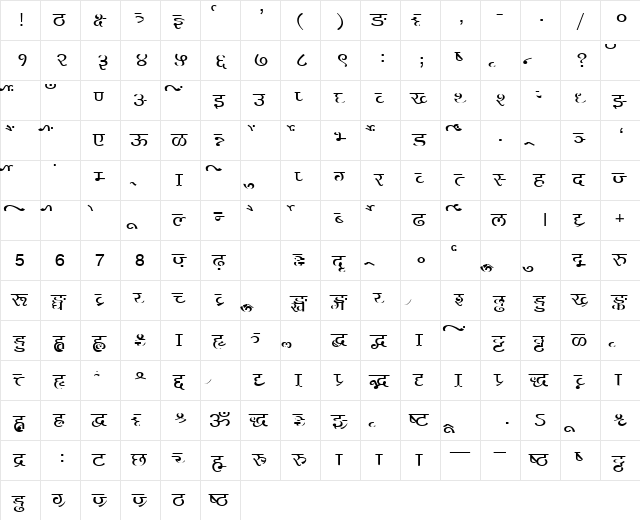
AkrutiDevMegha Normal
Design Context for AkrutiDevMegha Typeface
AkrutiDevMegha takes a measured approach to typography — its balanced proportions and neutral character make it a reliable workhorse for both digital and print work.